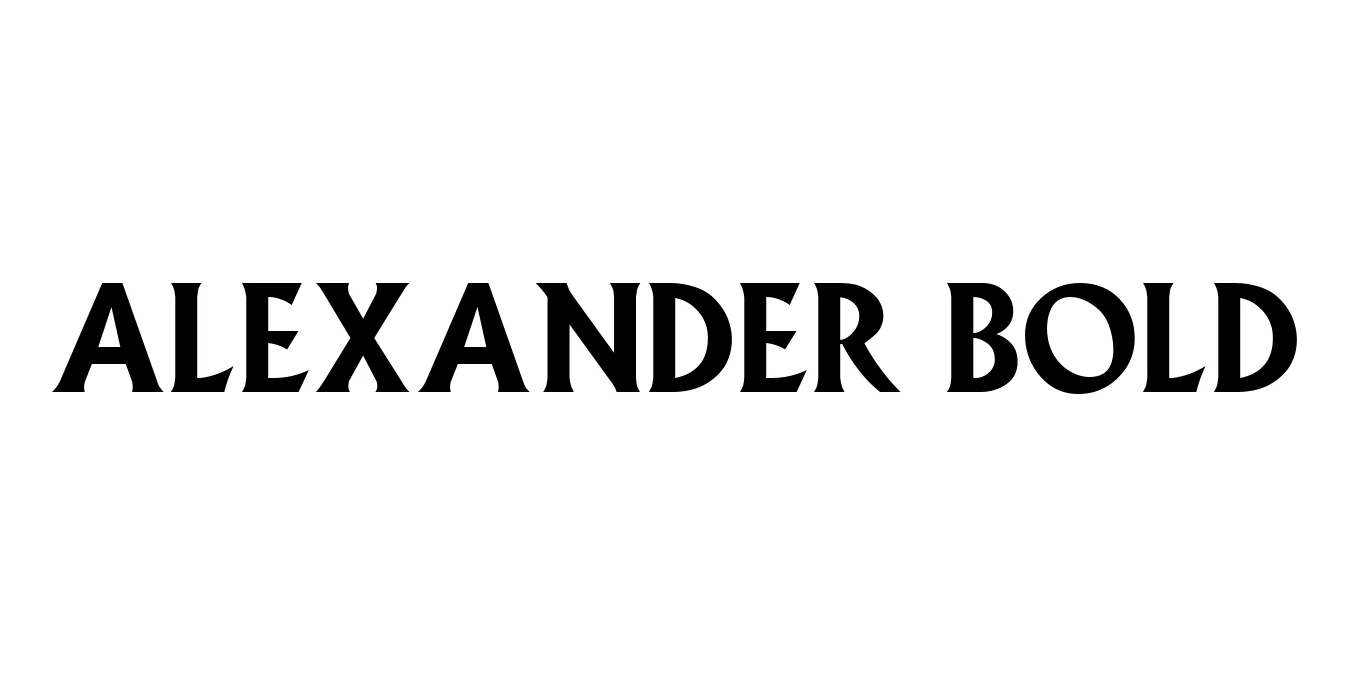
Alexander Bold
Designed by George Williams
Alexander Bold is a sophisticated serif typeface designed by George Williams, drawing deep inspiration from classical Greek typographic traditions. It was developed to provide a robust and elegant solution for typesetting complex texts that require a balance between traditional aesthetics and modern digital clarity. The bold weight enhances the character's presence, making it ideal for headings and emphatic statements while maintaining the intricate details of its letterforms.
Historically, this font belongs to a family that emphasizes linguistic versatility, often including extensive support for Greek and Latin scripts. Its structure features high contrast and sharp serifs, reminiscent of early 20th-century scholarly publishing. Today, Alexander Bold is favored by designers working on academic journals, book covers, and vintage-inspired branding projects that demand a sense of authority and timelessness.
Alexander Bold Best Uses
Ideal for titles and author names in historical or academic literature.
Perfect for pull quotes and section headers in sophisticated magazines.
Works well for luxury logos that require a timeless, established look.
Great for diplomas and formal documents due to its authoritative style.